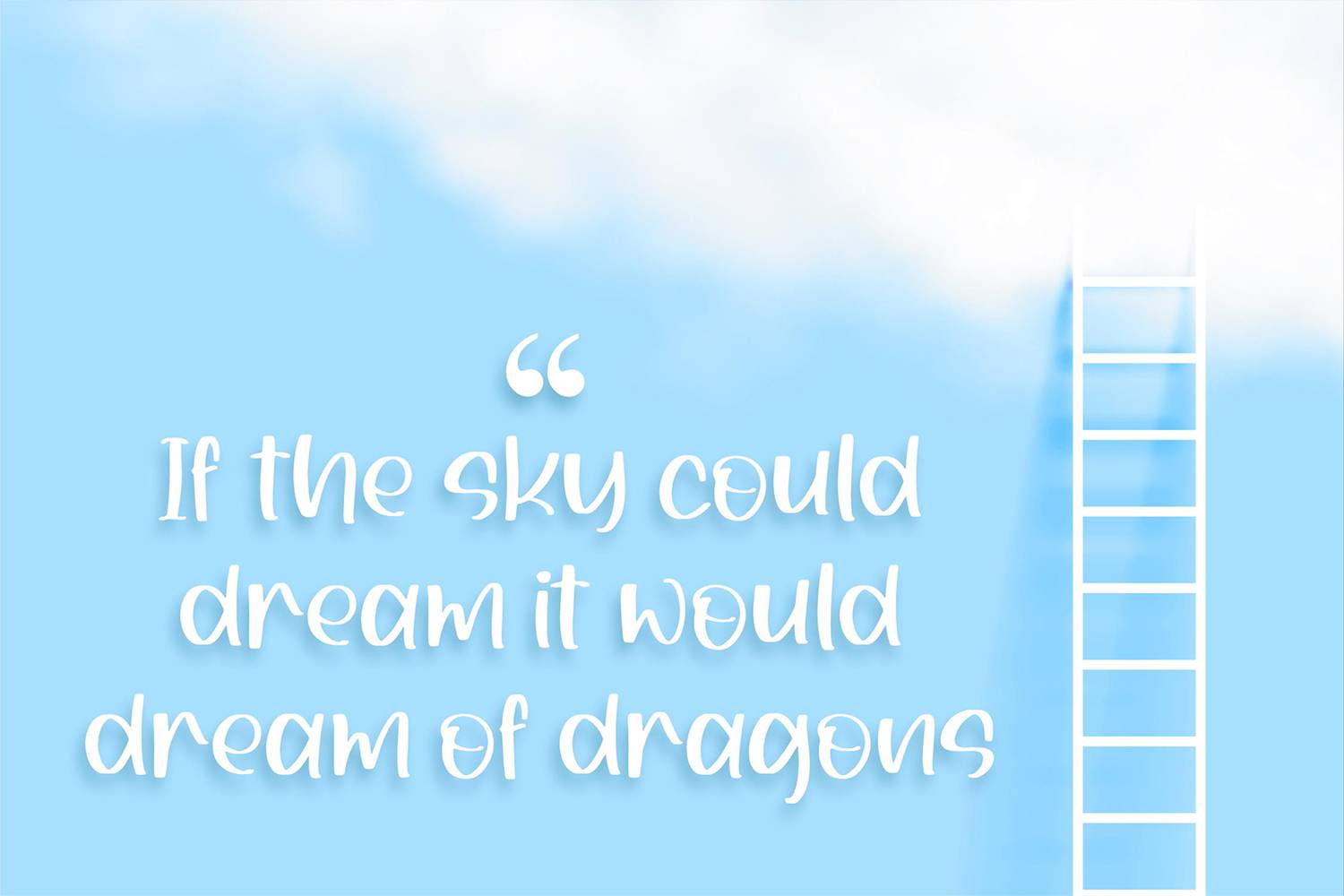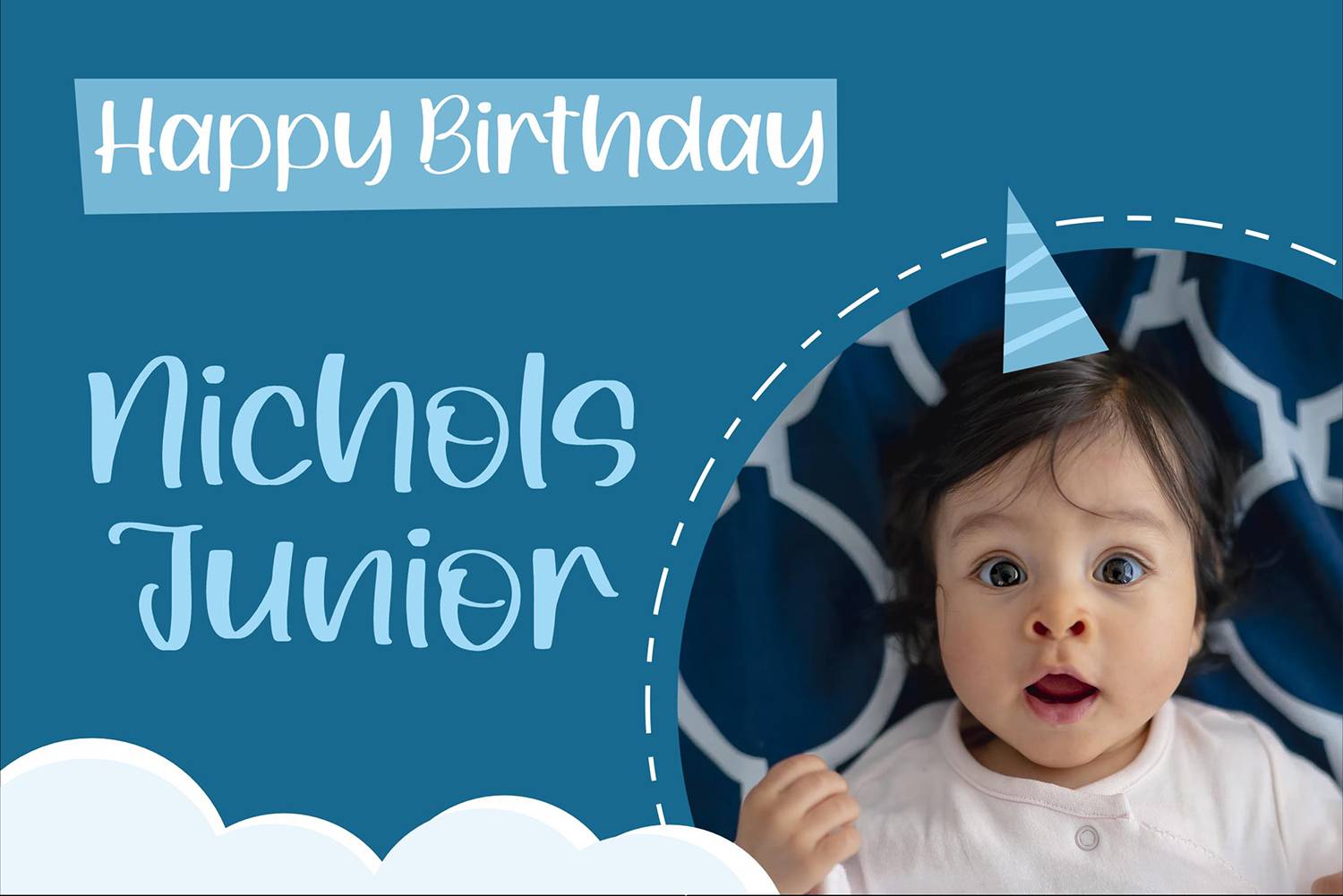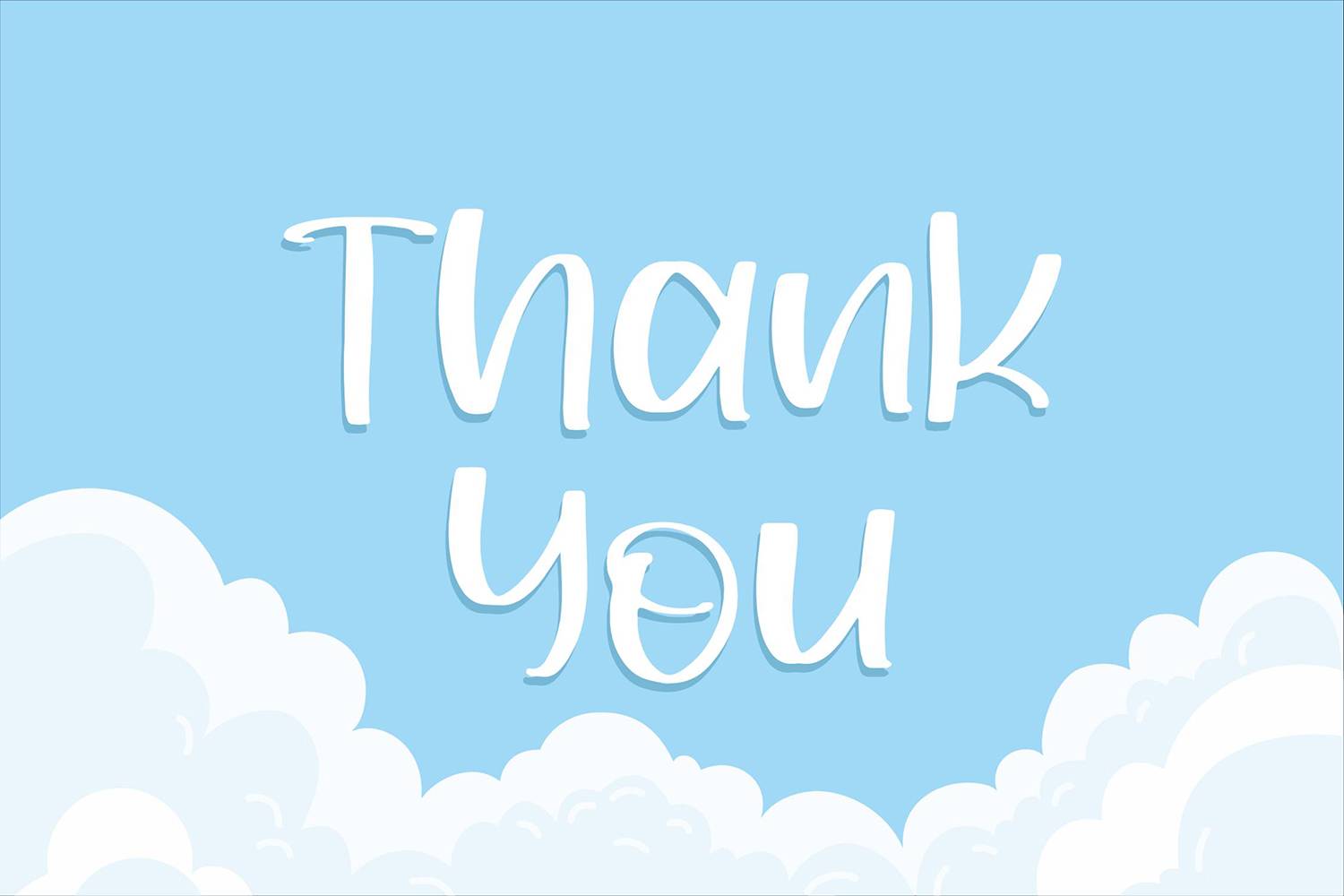
Skymate is a playful and casual script font with a hand-drawn feel, featuring smooth, slightly irregular strokes that give it charm and personality. Its moderate weight and tall x-height make it highly readable while maintaining an informal, friendly tone, perfect for creative branding, invitations, and social media graphics that seek a warm, approachable vibe. This font works well in headlines and display text where a personal, handwritten look is desired.
Skymate Font
About Skymate Font